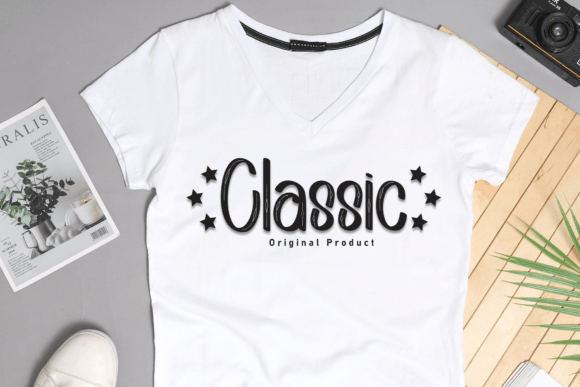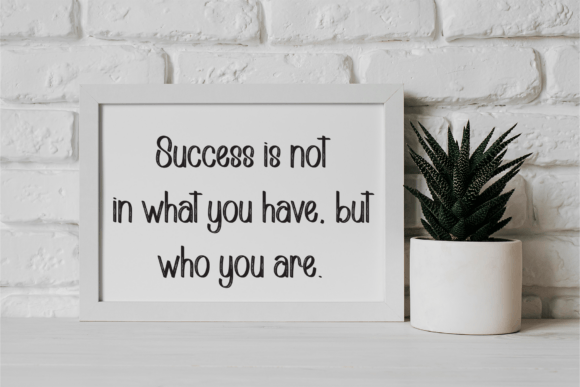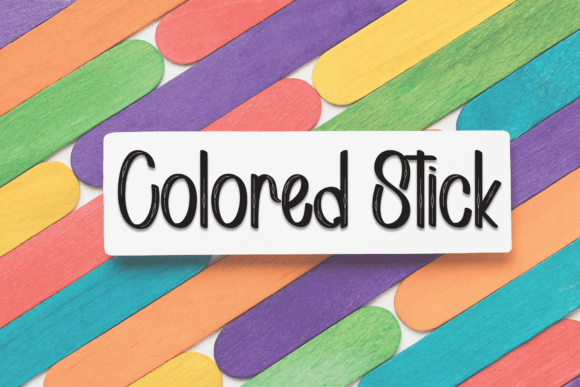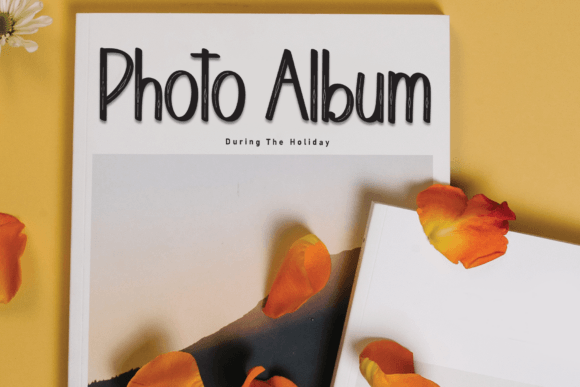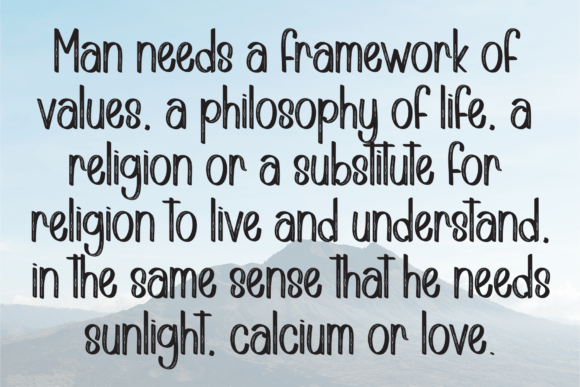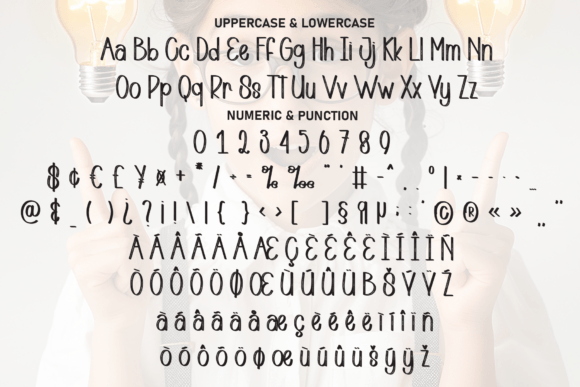
Introduction to Smart Girl Font
Have you ever found yourself staring at a blank page, struggling to bring your creative vision to life? As a designer, you know the frustration of not having the perfect font to match your artistic intent. But what if I told you that there’s a font that can effortlessly add a touch of whimsy and fun to your design project? Meet the Smart Girl Font, a delightful and approachable handwritten display font that’s about to become your new go-to choice.
This charming font is not just a pretty face; it’s a valuable resource for designers who crave a warm and delightful design touch. With its high-quality design and transparent background, it’s the perfect addition to any creative project. Whether you’re working on a wedding invitation, a heartfelt card, or a marketing campaign, the Smart Girl Font is sure to bring a smile to your face and your client’s.
Key Features of Smart Girl Font
- Designed with a modern and elegant style, ideal for creative professionals and hobbyists alike
- Includes a range of characters, including uppercase and lowercase letters, numbers, and punctuation marks
- Perfect for use in a variety of creative projects, from business cards and brochures to website headers and social media graphics
Honest Review: Smart Girl Font
I recently had the chance to work with the Smart Girl Font and I must say, I’m quite impressed. As a designer, I’m always on the lookout for high-quality design resources that can elevate my creative projects. The Smart Girl Font is definitely one of those resources.
What works well: ✨ The font is super easy to download and use, thanks to its free availability. I also appreciate the transparent background, which makes it easy to layer over other design elements. The font’s playful and feminine style is perfect for any project that needs a touch of elegance.
Some key features of the Smart Girl Font include:
- Playful and feminine style
- Perfect for creative projects and design resources
Getting the Most Out of Smart Girl Font
To get the most out of the Smart Girl Font, experiment with different font sizes, colors, and styles to create visually appealing designs. Use the transparent background to add depth and interest to your creative projects. This font is perfect for design projects that require a touch of femininity and elegance.
The Smart Girl Font is perfect for a variety of design projects, including wedding invitations, baby shower invitations, and social media graphics. Its high-quality design and transparent background make it an excellent choice for creative projects that require a touch of sophistication and elegance.